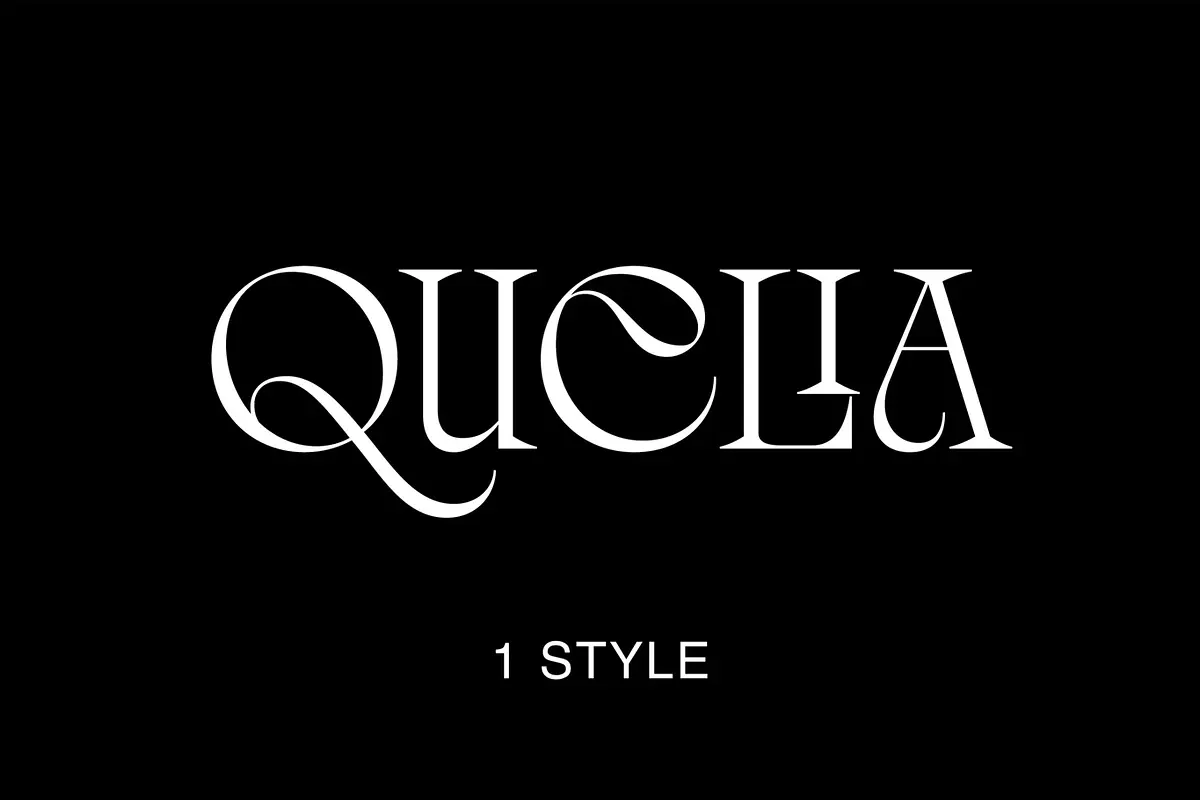
Quelia - Organic Display Font Free Download
Quelia - Organic Display Font Free Download is a creative and earthy typeface designed to bring a natural, organic feel to your designs. With its flowing, hand-crafted style and unique curves, Quelia is perfect for projects related to eco-friendly branding, wellness, natural products, and earthy-themed designs like logos, packaging, and advertisements.
Quelia - Organic Display Font Free Download provides a distinctive, organic look that makes it ideal for designs that aim to feel grounded, natural, and approachable. Whether you're creating a brand identity for a sustainable company or designing artistic promotional materials, Quelia adds warmth and authenticity to your typography. Download it today and bring nature-inspired elegance to your next creative project!